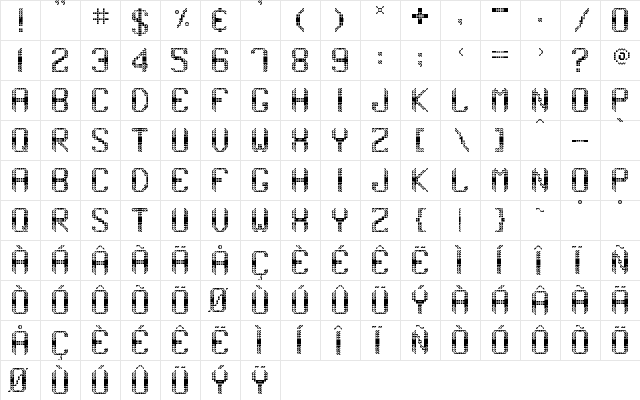
Expanse Regular
| Designer | rikyozone |
Design Context for Expanse Typeface
Expanse is a composed and adaptable typeface that performs quietly and consistently across a wide range of design contexts.